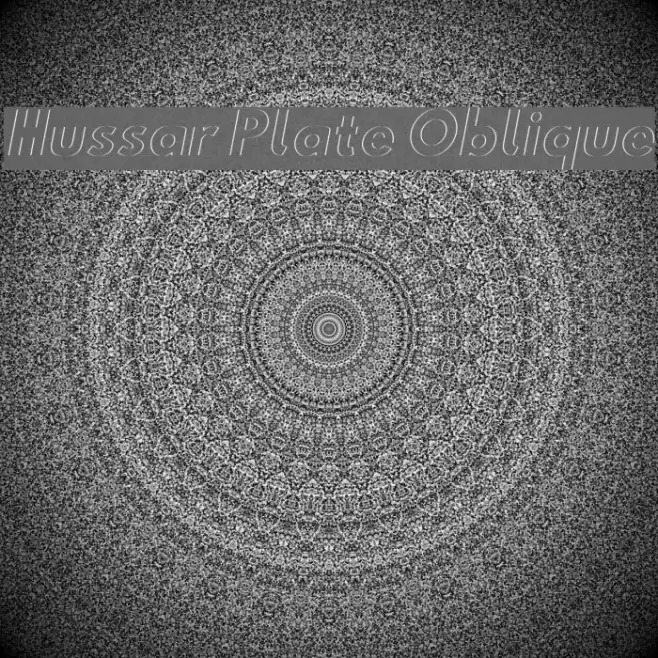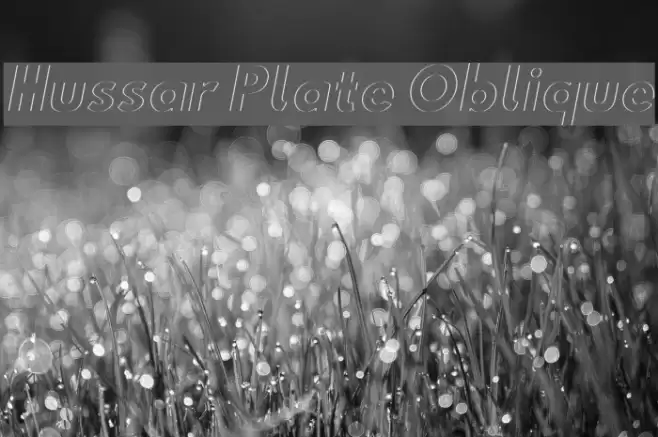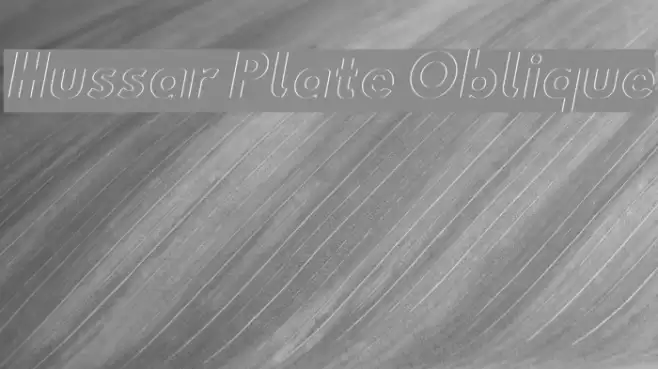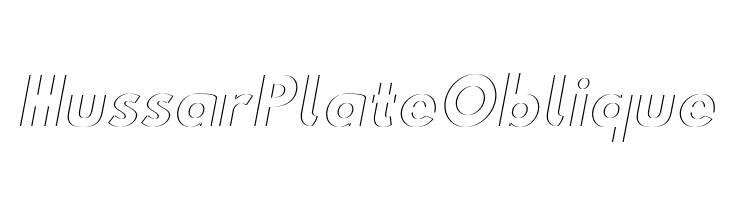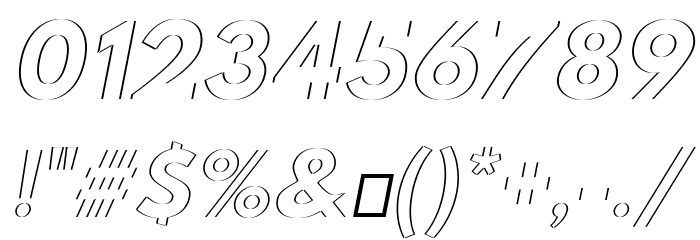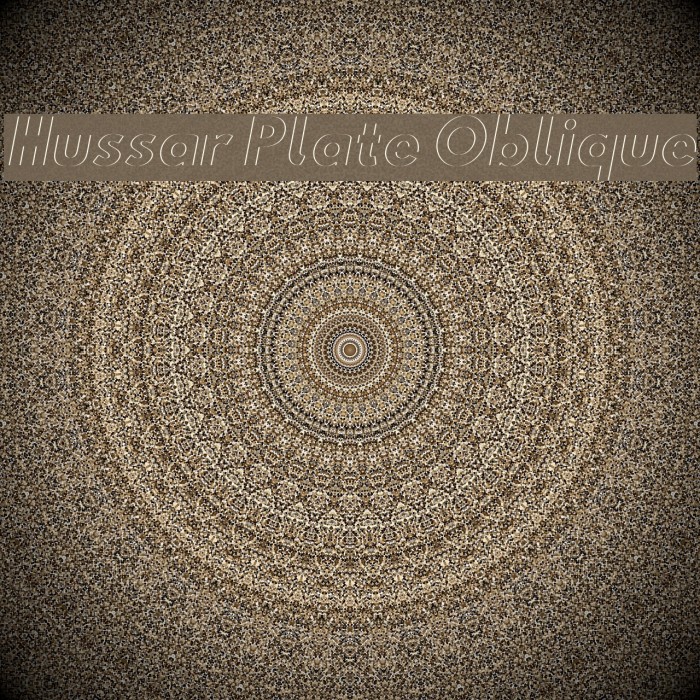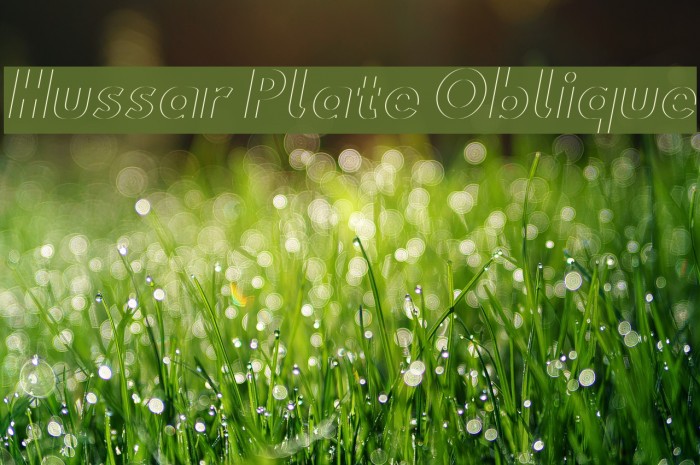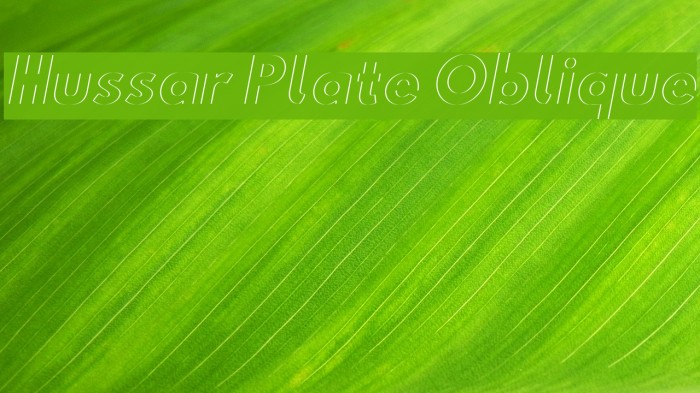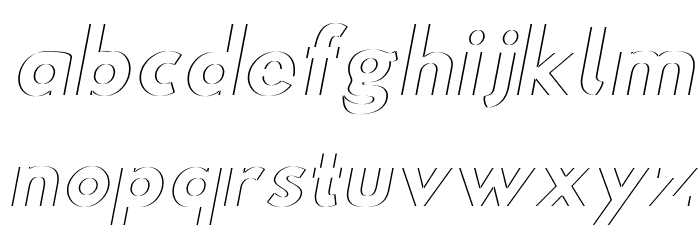
Hussar Plate Oblique Font
Hussar Plate Oblique Description
This font features a distinct oblique style with clean, sharp lines and a modern aesthetic. The characters are slightly slanted, giving a sense of motion and dynamism. The uppercase and lowercase letters maintain a consistent style, with a geometric influence that is evident in the uniformity of the strokes. The numerals are bold and clear, ensuring readability. Special characters are designed to match the overall style, providing a cohesive look across all glyphs. The font's design is both contemporary and versatile, making it suitable for a variety of applications.
A modern, oblique font with sharp lines and geometric influences from Uncategorized fonts.